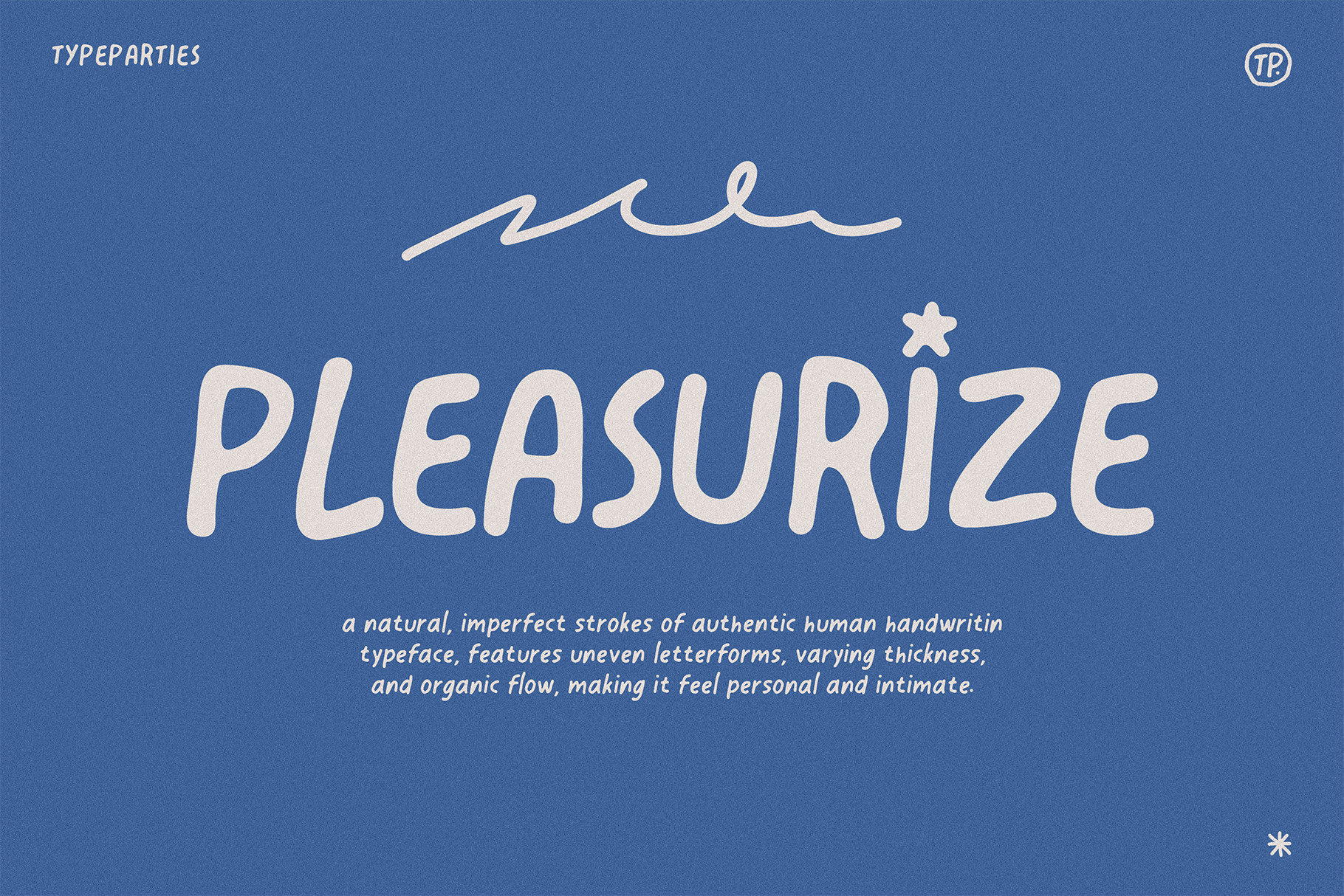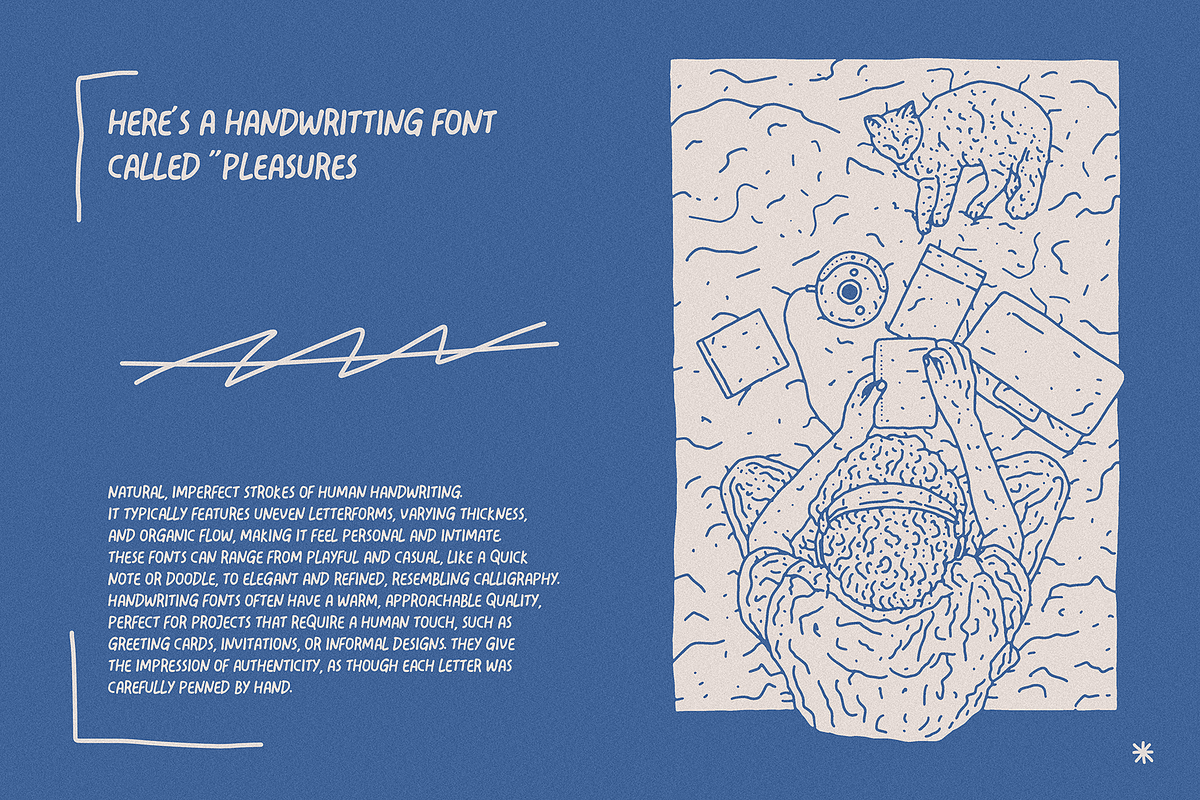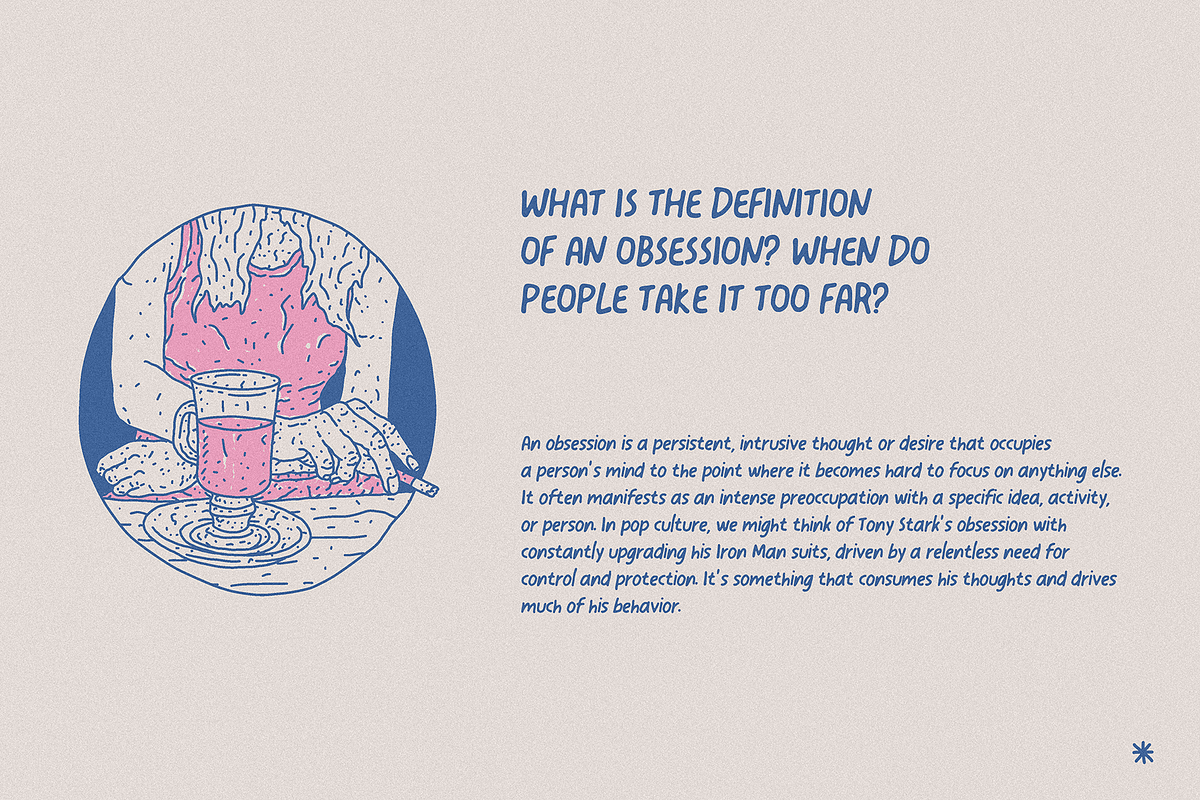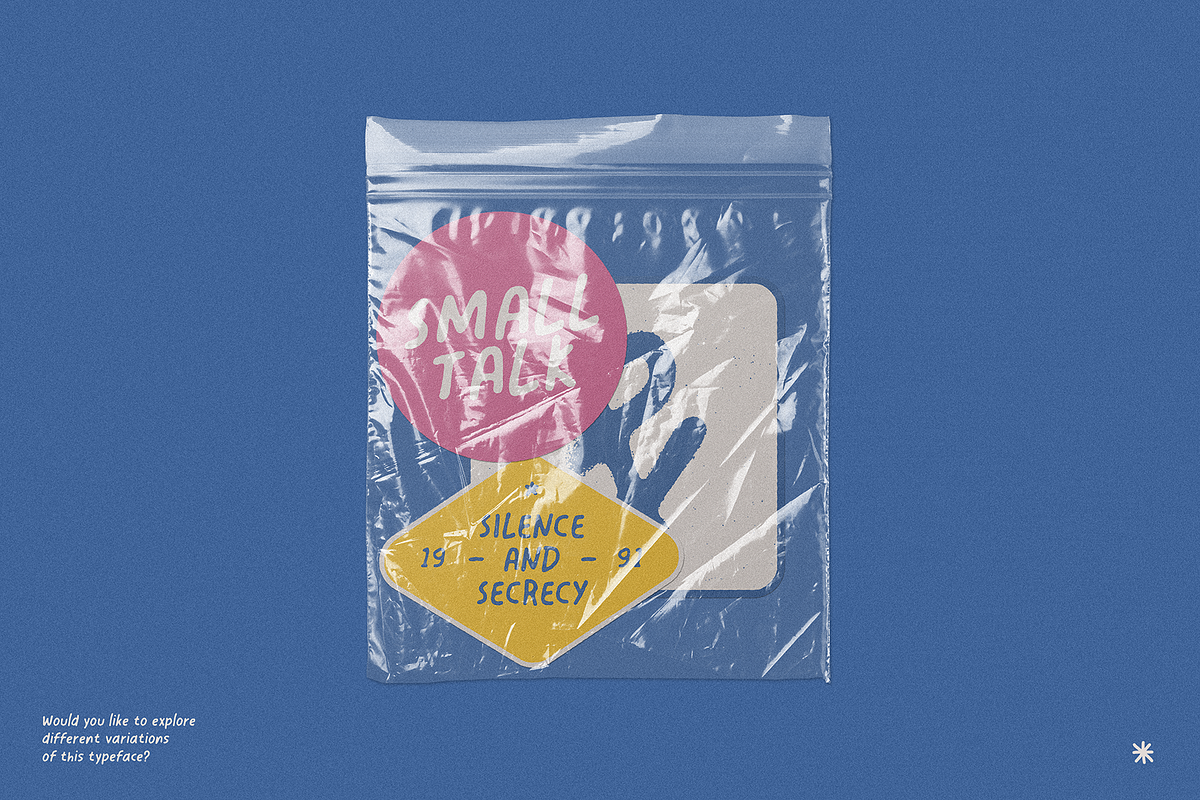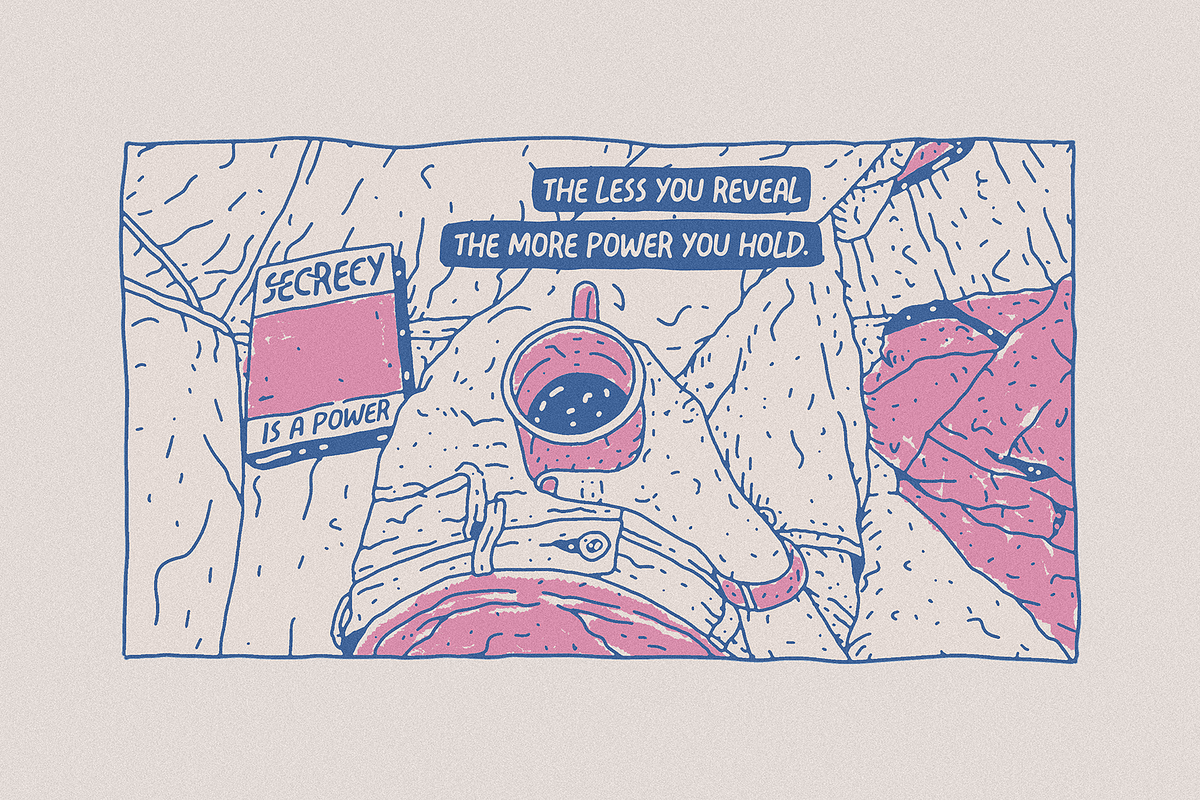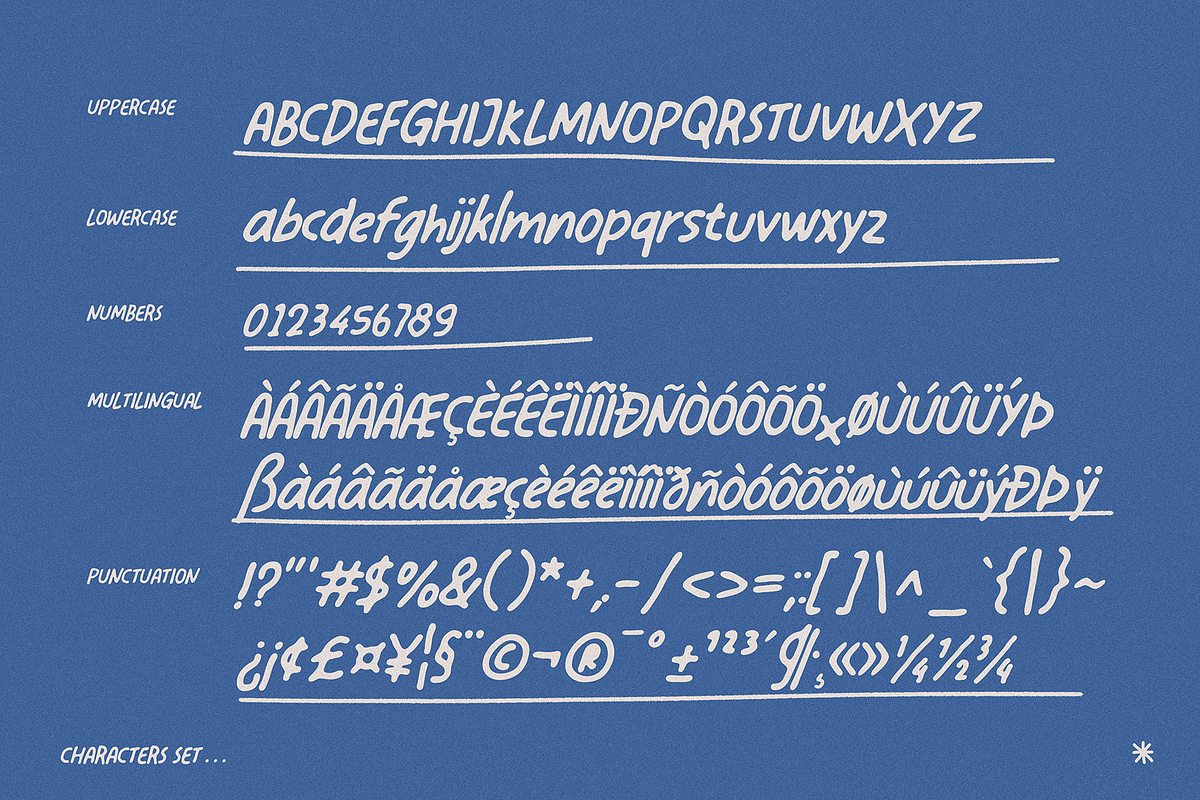
Pleasurize Handwritten Font
A natural, imperfect strokes of human handwriting. It typically features uneven letterforms, varying thickness, and organic flow, making it feel personal and intimate. These fonts can range from playful and casual, like a quick note or doodle, to elegant and refined, resembling calligraphy. Handwriting fonts often have a warm, approachable quality, perfect for projects that require a human touch, such as greeting cards, invitations, or informal designs. They give the impression of authenticity, as though each letter was carefully penned by hand.